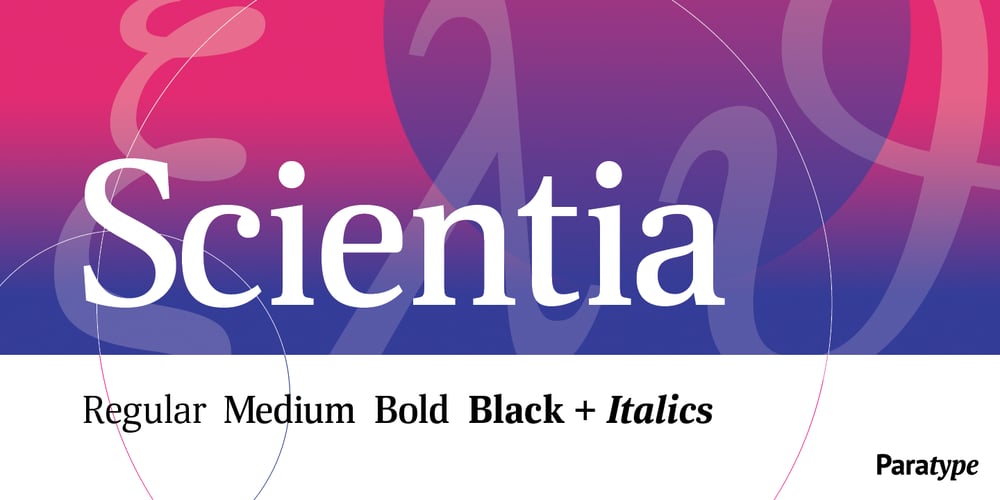
Scientia Font Family was designed by Natalia Vasilyeva and published by ParaType. Scientia contains 8 styles and family package options. Scientia (means ‘knowledge’, ‘science’ in Latin) is a neutral serif typeface in eight styles. It contains four weights (Regular, Medium, Bold, Black) with corresponding italics. All the styles support Western and Central European Latin, basic and Asian Cyrillic and Greek. Regular and Medium styles include smallcaps for all supported languages. In addition to the standard set of non-alphabetic characters Scientia has arrows and some supplemental mathematical symbols. The font was created by Natalia Vasilyeva. Being a professional book designer, Natalia uses Scientia in astronomy books. Scientia is a good choice for literary fiction and academic non-fiction texts. The typeface was released by Paratype in 2016.